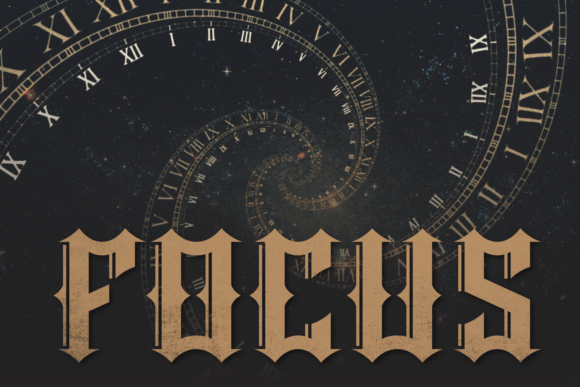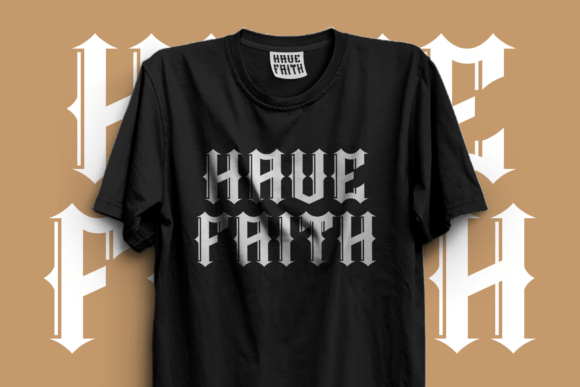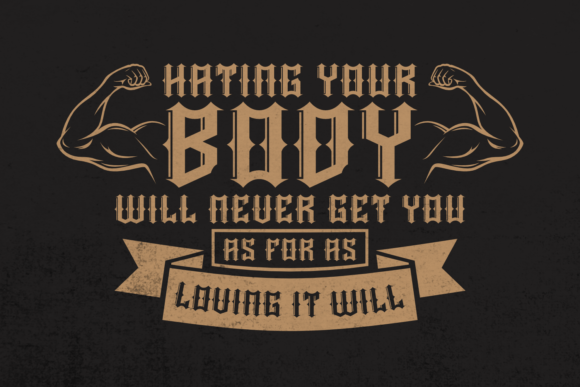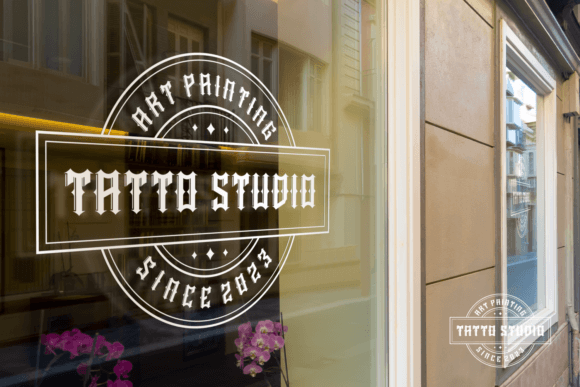
Unleashing Your Inner Rebel: The Power of Goozi Rider Font
Have you ever stared at a blank page, eager to create something bold and eye-catching? For many designers, this is a familiar feeling. It’s the moment when inspiration strikes, and the possibilities seem endless. One tool that can help you tap into this creative energy is the Goozi Rider Font – a game-changing blackletter font that’s sure to make your designs stand out.
This edgy font is perfect for those who want to add a touch of medieval flair to their work. With its sharp, angular lines and Gothic-inspired style, Goozi Rider Font is ideal for creating strong, attention-grabbing headlines, logos, and more. Whether you’re a seasoned designer or just starting out, this font is a valuable addition to your toolkit, offering a distinctive look that’s sure to leave a lasting impression.
Goozi Rider Font Key Features
- Unique Characteristics: Goozi Rider Font features a unique, hand-drawn style with bold lines and vibrant colors, making it perfect for creating eye-catching and playful designs.
Goozi Rider Font Review
Overall, I think Goozi Rider Font is an interesting addition to any design project. Here are some things that stand out: ✨
- Uniqueness: The font has a distinct, playful feel that’s sure to grab attention.
- Craftsmanship: The font designer has clearly put effort into crafting each letter, making it feel more like a hand-drawn piece of art.
- Character set: Goozi Rider Font includes a wide range of characters, including accents and symbols, which is a plus for designers who work with non-English languages.
- Limited legibility: At smaller font sizes, some of the letters can become difficult to read due to their unique shape.
- No bold or italic variants: If you need to use Goozi Rider Font for headings or emphasis, you may be out of luck.
- Not suitable for body text: Due to its playful nature, Goozi Rider Font may not be the best choice for long blocks of text.
Overall, I think Goozi Rider Font is a great choice for designers who want to add a bit of whimsy to their projects. Just be aware of its limitations and use it in moderation.
Goozi Rider Font Practical Application Guide
The Goozi Rider font is a modern, stylish font that can be used in various design projects. To use it, follow these steps:
Tips for Getting the Most Out of Goozi Rider Font
To get the most out of the Goozi Rider font, use it for modern and stylish designs. Pair it with bold colors and graphics to create eye-catching visuals. Experiment with different font sizes and styles to add depth to your designs.
The Goozi Rider font is suitable for various design projects, including:
Social media graphics and flyers
Logos and branding materials
Presentations and reports
Visual content and graphics
What is the recommended font size for optimal readability with Goozi Rider Font?
For optimal readability, we recommend using Goozi Rider Font at a minimum font size of 12 points (12pt) for body text and 18 points (18pt) or larger for headings. This will ensure the font remains legible and visually appealing in various design contexts.